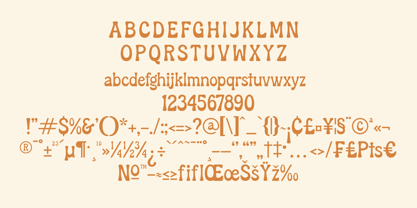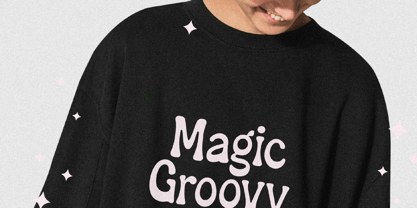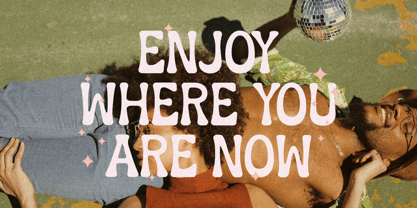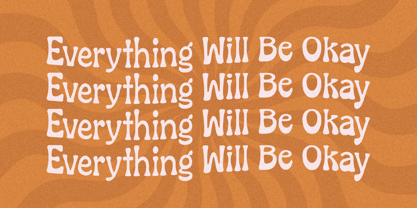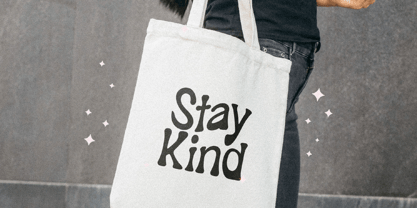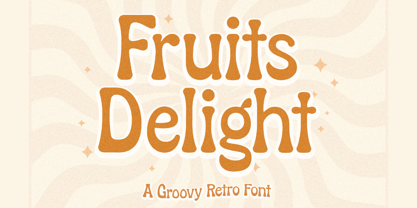
Fruits Delight
by Letterena Studios
The Fruits Delight Font Family was designed by Heru Utama Putra and published by Letterena Studios. Fruits Delight contains 2 styles and family package options. More about this family
Fruits Delight is a fun and groovy serif display font. With its cool retro vibe, this font is suitable for a wide range of design ideas. Add it confidently to your projects and you will love the results!
Foundry: Letterena Studios